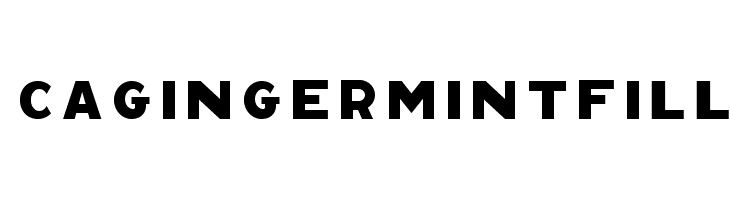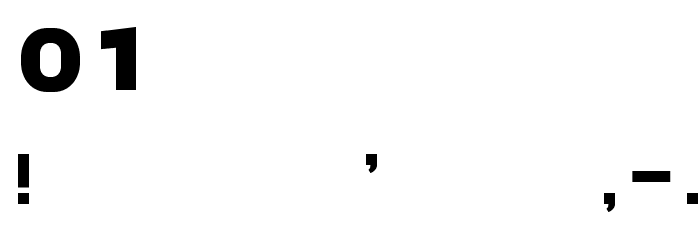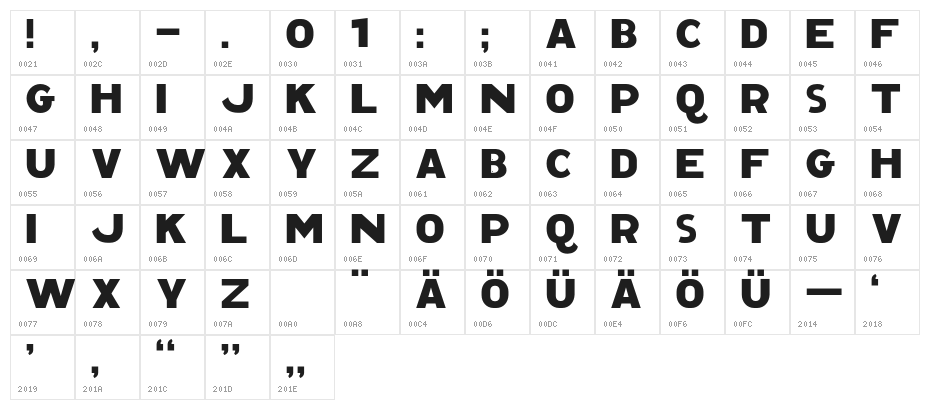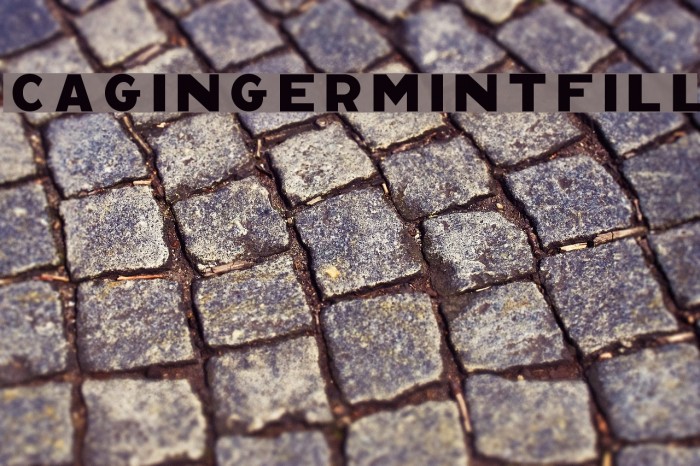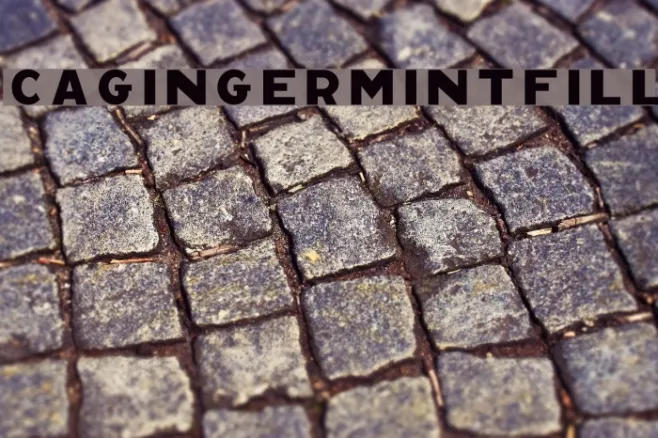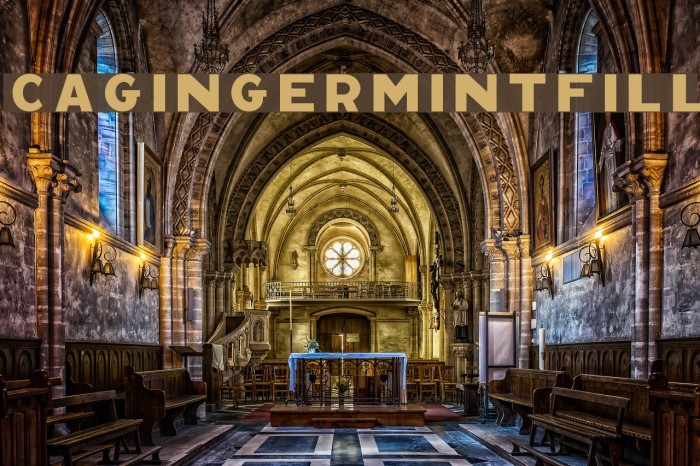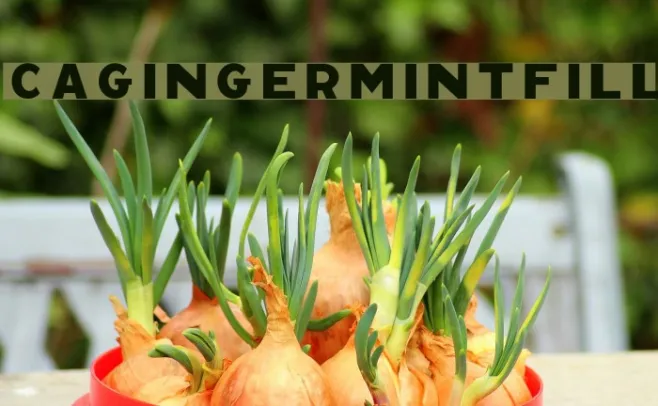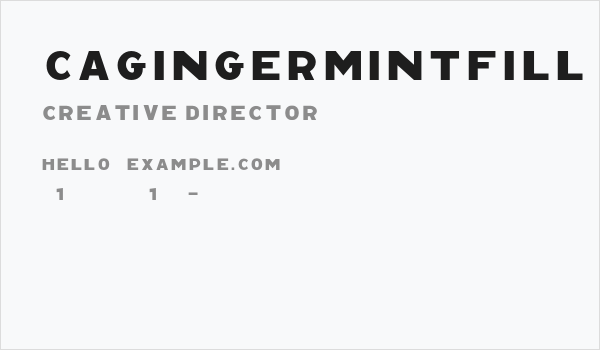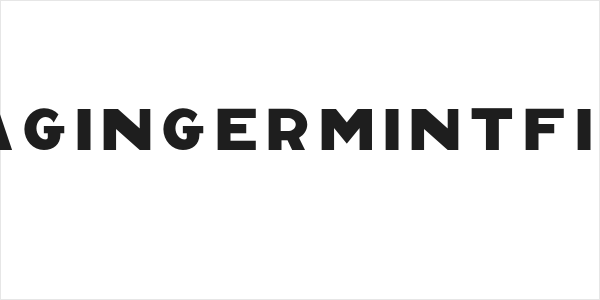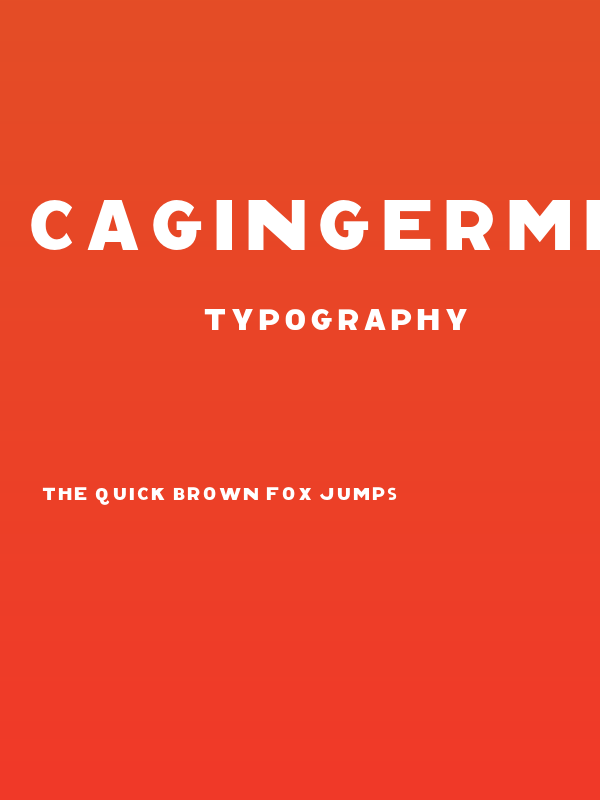
CAGingerMintFill Font
CAGingerMintFill Description
This font features bold, geometric letterforms with a strong presence. The characters are uniformly thick, providing a consistent and solid appearance. The uppercase letters are particularly striking, with a modern and clean design that emphasizes clarity and readability. The lowercase letters maintain the same boldness, ensuring uniformity across text. The numerals are equally bold, matching the style of the alphabet. The font includes a limited set of punctuation marks, each designed to complement the overall bold aesthetic. The style is suitable for making a strong visual impact, ideal for headlines or branding.